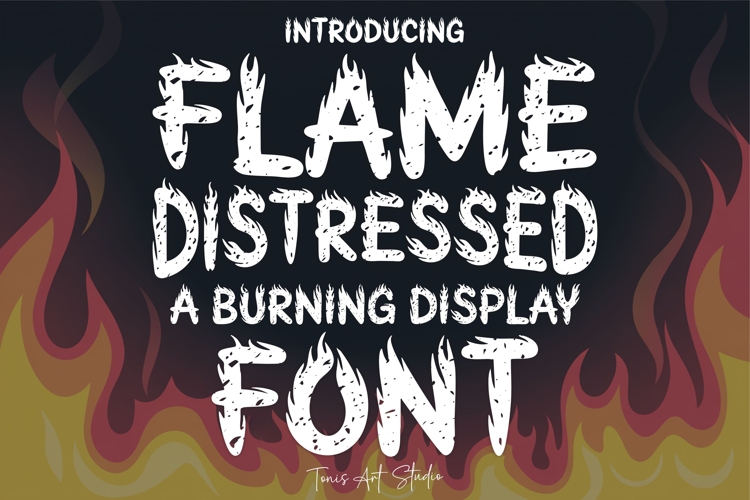
Flame Distressed Font
Unleash the power of fire in your designs with the Flame Distressed Font, a bold and fiery display typeface inspired by flames, heat, and raw energy. Each letter is designed with burning details and distressed textures, making it stand out in projects that need intensity and dramatic impact. Perfect for Cricut, Silhouette, Glowforge, and Procreate, this font is ideal for t-shirts, posters, sports graphics, music artwork, party signs, summer BBQ themes, and Halloween projects.
With sharp flame accents and a rugged distressed style, the Flame Distressed Font brings movement, heat, and attitude to every word. Whether you are designing motivational quotes, edgy apparel, rock band graphics, festival flyers, or spooky seasonal crafts, this font will set your creations ablaze with unforgettable style.